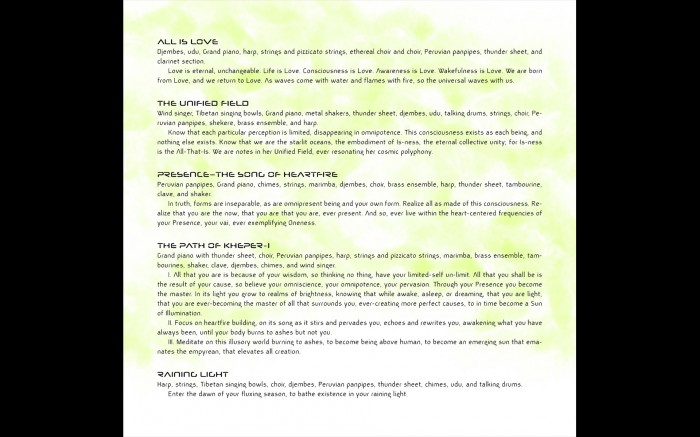
This font, which used to be called Malachite, took me just over a year to complete. The overall design took the longest, and the remainder of the time was spent deciding on how to do the punctuation and the diacritics, some of which weren't forthcoming until recently. It is also older than listed, as this is a cloned version of the original that is no longer on here. I created it in late 2009, or early 2010—I can't remember; and, Minimum was the inspiration for it's creation. :)
Okay peeps. I've finished it. I've added characters, an italic version, and kerned it, and I'll let you all know when and where you can get it.
P.S. For anyone looking for Malachite, this is it. I changed the name because Malachite is already taken.
An interesting and well balanced design - well worth the time and effort put in.
I have made changes to it since this version.
I feel like this font is underrated. Not only is the design pretty cool, but it works well as a text font too, and seems to remain remarkably legible at all sorts of font sizes.
Yeah, I can definitely agree with that. And, thank you. It does remain quite legible and does work well as a text font. I use it primarily for my music project, Ib.
Here's an example of it in use from my last album entitled "The Path of Kheper-i":
Beautiful 'open' music...
The sleeve text is easy to read and calming for the eye (if that is possible to understand...)
Why, thank you. :) And yes, that is actually understandable; I had just never thought about it that way. Even in the sample, which is tiny, I can easily read it. The background, if you're curious, is the color (frequency) of Love, i.e., sea-foam green.
I've updated Ptah. I've re-kerned it, i.e., respaced and simplified it, added a lot more characters, and altered a couple. The font now supports virtually all Amerindian and African languages, and the glyphs in the Private Use Area are mapped to the same code points as those in Dehuti. Enjoy. :)
I've updated Ptah yet again. I've slightly altered the Q and W, most of the punctuation, and added lowercase numbers and quite a few more characters.